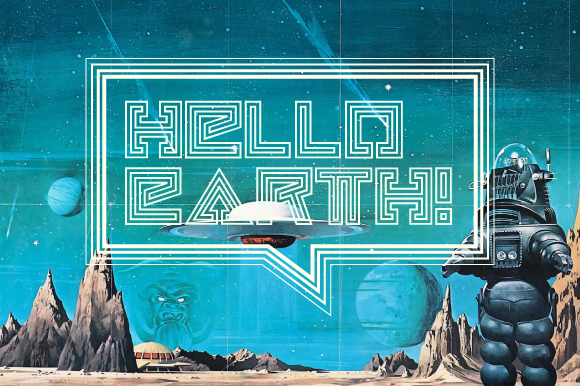
Venture into the realm of the cosmos with Hello Earth Font, the ultimate display font that embodies the allure of the unknown. This celestial creation by KPH is not just a font; it's an intergalactic odyssey that transports your designs to the far corners of the universe.
Hello Earth is the perfect font for those who dare to dream big, to explore the unexplored, and to leave their mark on the world. Its bold, caps-only characters command attention, demanding to be noticed in both digital and print realms.
Like a meteor streaking across the night sky, Hello Earth's unique letterforms evoke a sense of wonder and awe. Crafted with the utmost precision, each glyph exudes an extraterrestrial charm, capturing the imagination and igniting the creative spirit.
With Hello Earth, your words take on new life, becoming cosmic vessels carrying messages of hope, love, and adventure. Whether you're designing a space-themed poster, crafting an otherworldly logo, or creating an unforgettable social media post, Hello Earth is your font of choice.
Soar above the ordinary and embark on a typographic journey like no other. Embrace the extraordinary with Hello Earth Font, and let your designs speak volumes without uttering a single word.